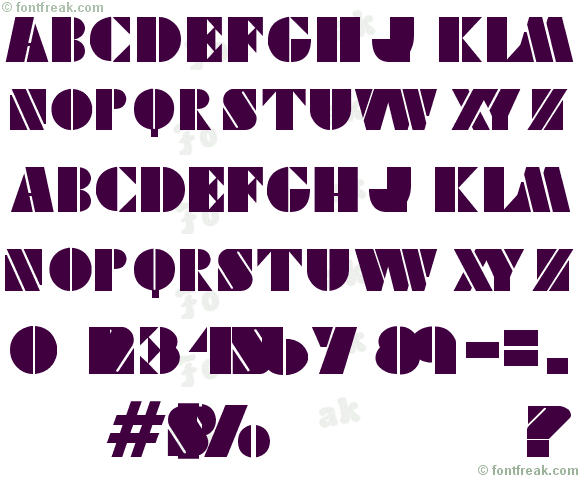
Viking Stencil
About Viking Stencil
Viking Stencil by Sharkshock is a striking display font that captivates with its distinctive aesthetic. Released in 2001 by designer Dennis Ludlow, this freeware typeface is characterized by bold, geometric forms that evoke a sense of adventure and ruggedness. The font features a stencil design that incorporates sharp angles and cut-out sections, lending it a unique visual identity. Its stroke weight is consistent, providing a strong presence, while the spacing between letters ensures clarity and legibility, making it an excellent choice for various applications.
The Viking Stencil font finds its best use in contexts that call for eye-catching designs. It is particularly suited for creating movie posters, where its dynamic character can draw attention and convey themes of action and exploration. Additionally, it works well for branding small businesses, especially those with a rustic or adventurous theme, such as outdoor equipment stores or Viking-themed restaurants. The font can also enhance the aesthetic of merchandise like t-shirts and promotional materials, making it a versatile choice for content creators looking to make a statement. Graphic designers will appreciate its ability to add a bold flair to projects while maintaining readability.
The target audience for Viking Stencil includes graphic designers, small business owners, and content creators who seek to infuse their work with a sense of individuality and character. Its unique design and robust presence make it a standout option in the realm of display fonts.
In summary, the Viking Stencil font free download offers a captivating blend of boldness and creativity, making it a valuable addition to any designer's toolkit. Its distinctive style not only serves to communicate messages effectively but also enhances the overall visual impact of any project.